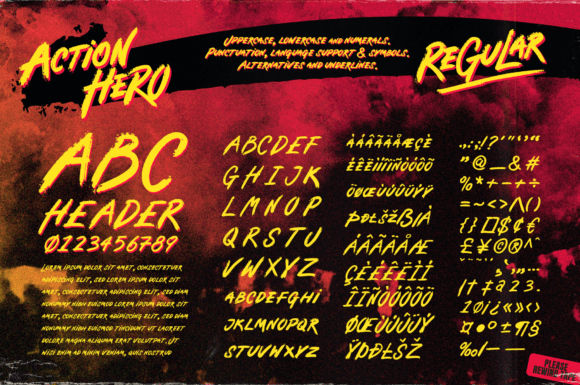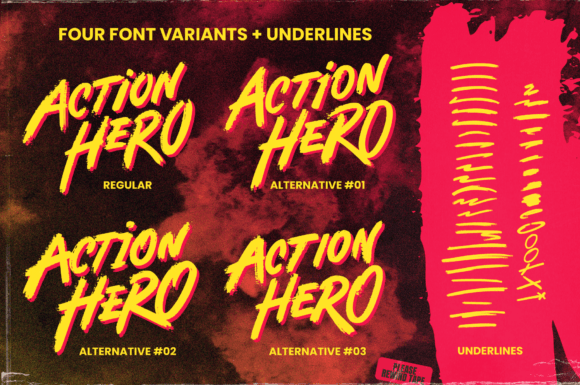
Action Hero Font
A grungy, textured brush font for action-packed movie posters and titles.
Action Hero is a hand-drawn brush font inspired by action movie posters of the 1980s and 90s. Does your movie feature a hostage situation on a speeding bus or train? Try Action Hero. How about a one-man army tasked with rescuing stranded POWs? Try Action Hero! Maybe a post-apocalyptic race across the desert, or did they dare to kill your favorite second cousin? Big mistake – Get Action Hero!
The Action Hero font family includes many creative options so you’ll never have to repeat characters (a personal bugbear with hand-drawn fonts) and achieve authentic hand-drawn-looking title designs.
With countless creative options and a design that explodes off the screen, this is the last action hero font you’ll ever need!